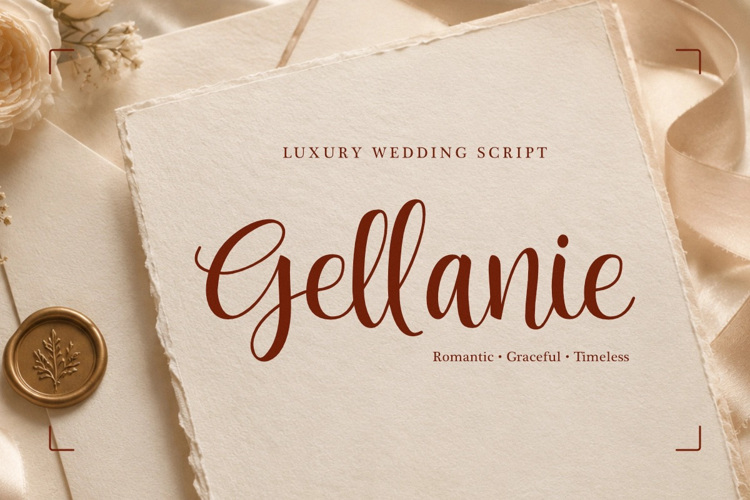
Gellanie Font
Gellanie is an elegant handwritten script designed to capture the charm of modern calligraphy with a refined and approachable character. Built with smooth curves, elongated descenders, and balanced stroke transitions, it delivers a sophisticated handwritten aesthetic that feels both romantic and highly legible.